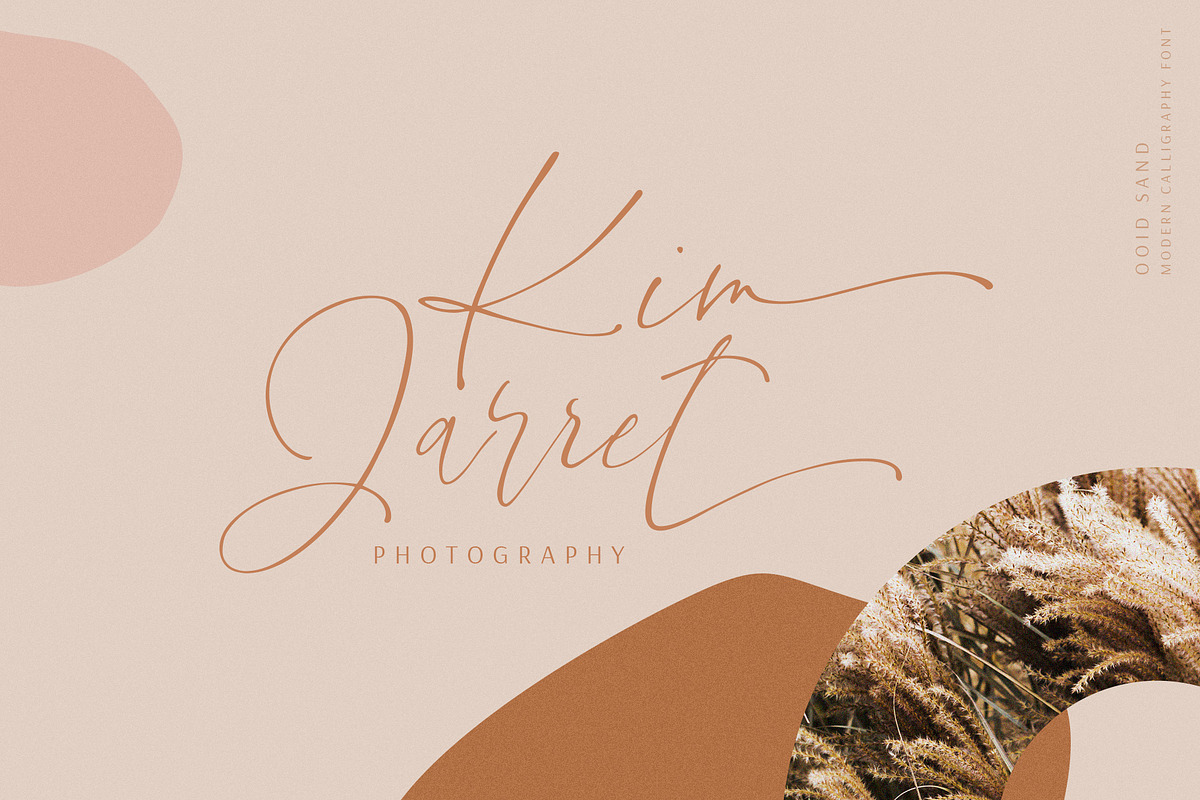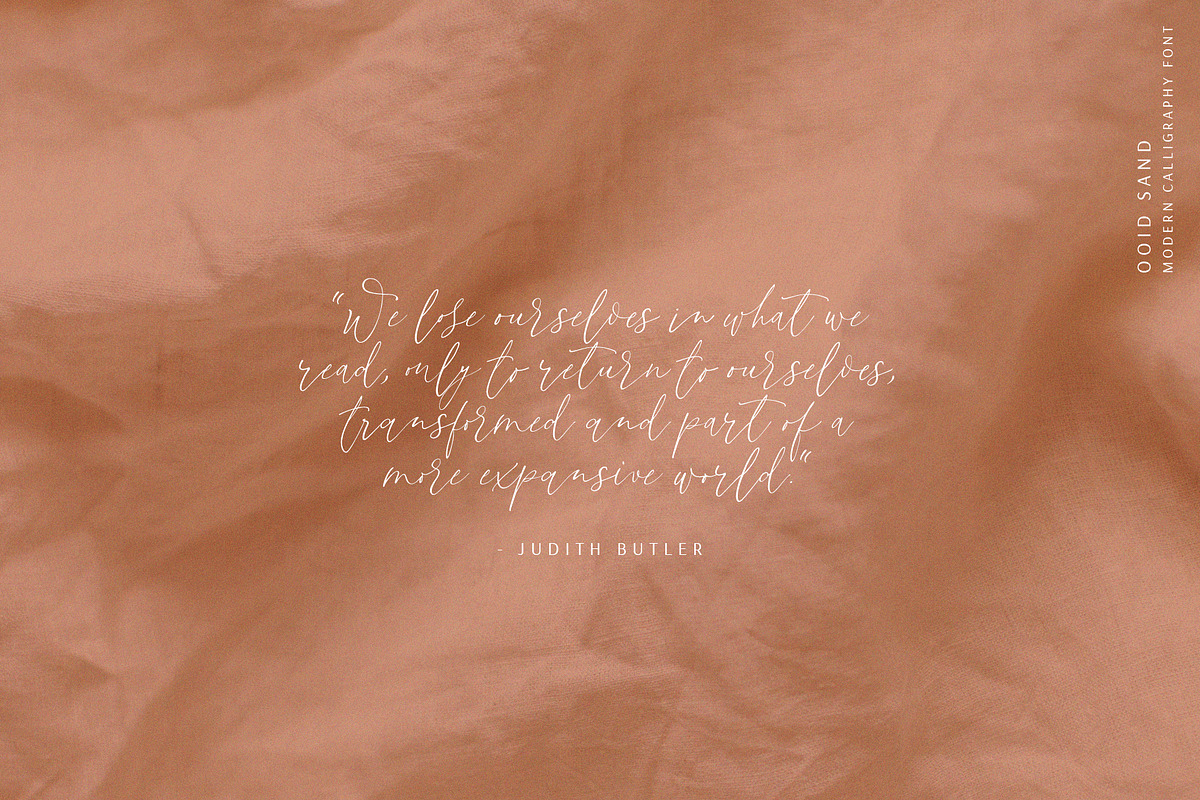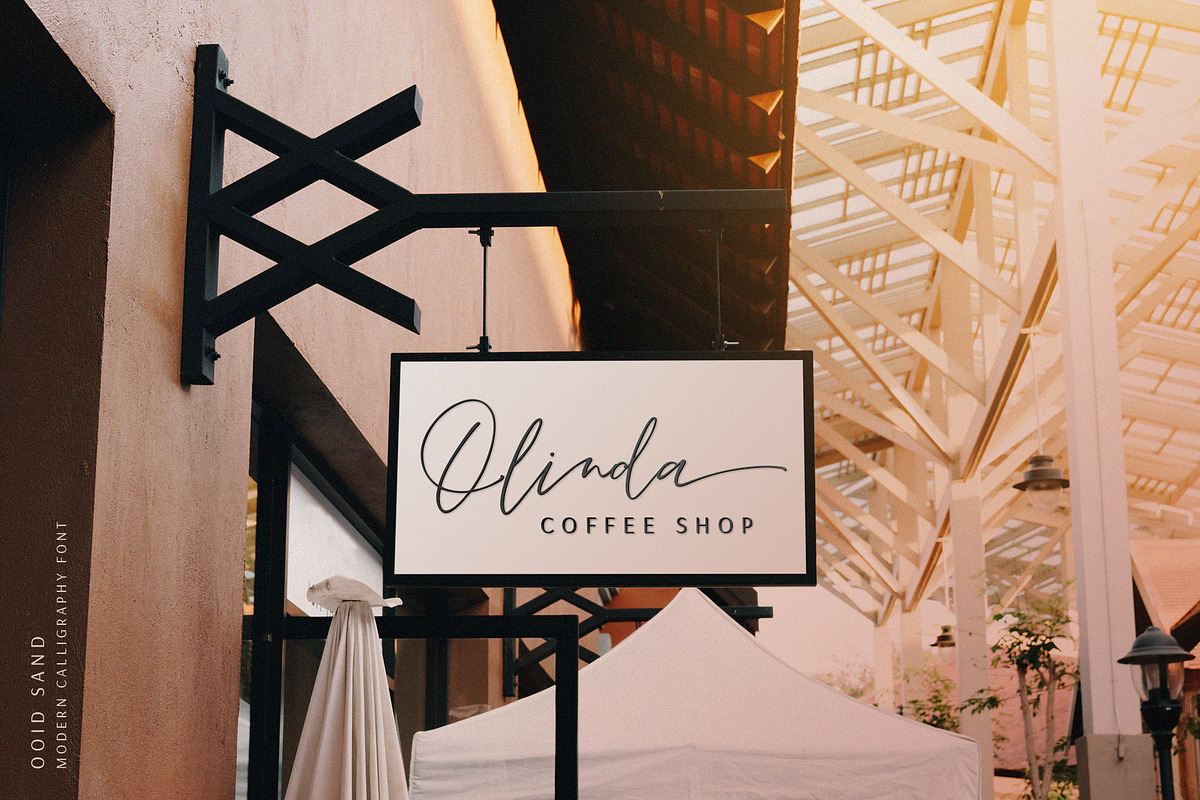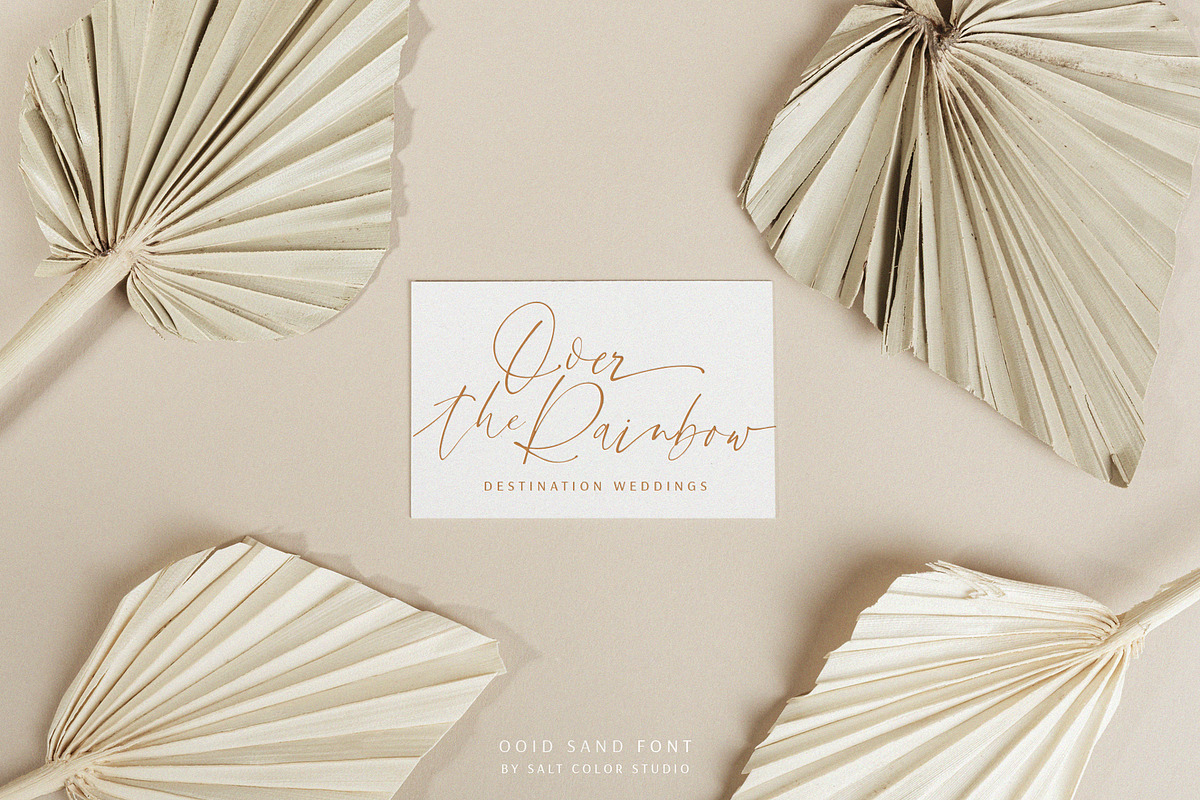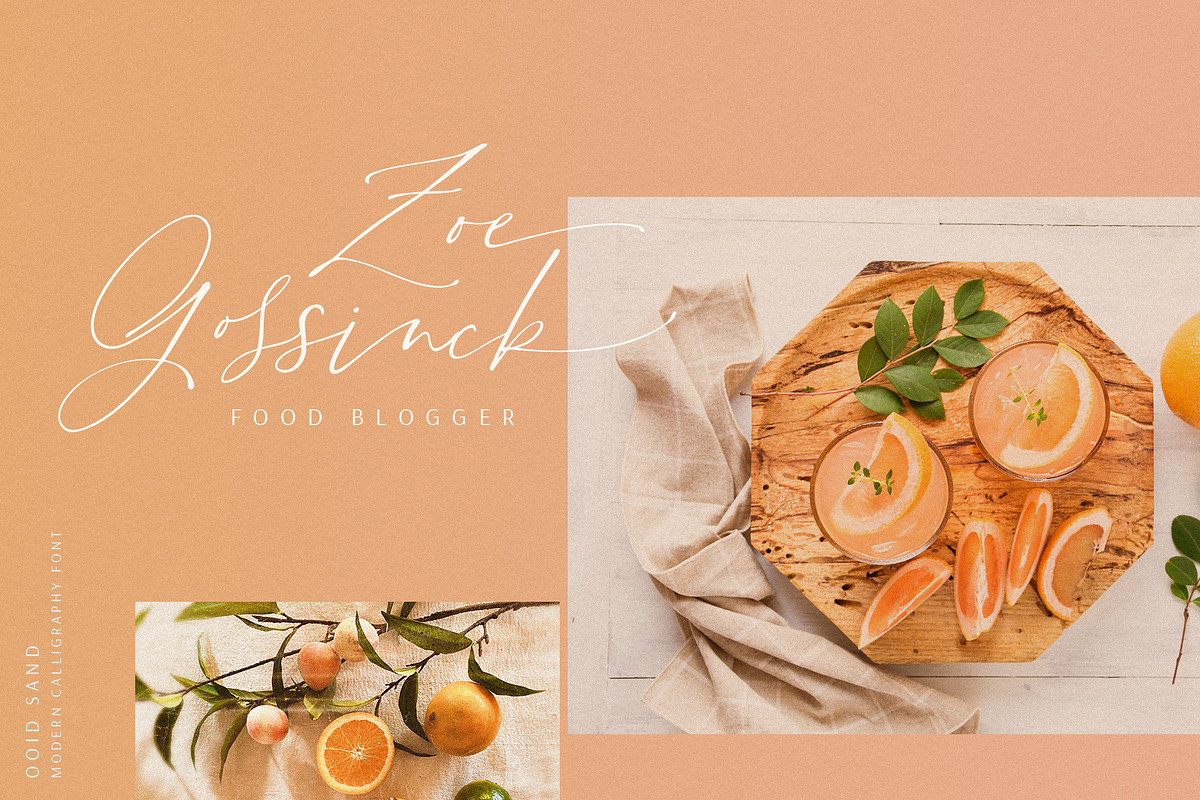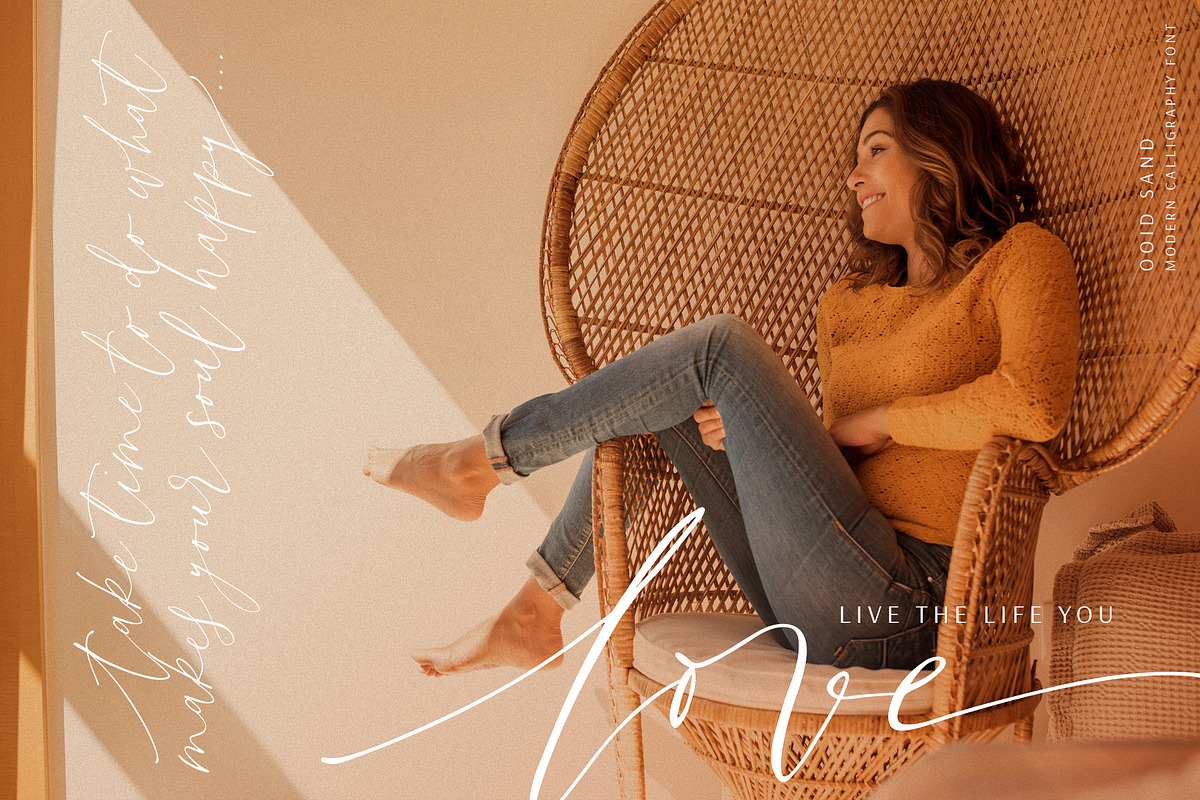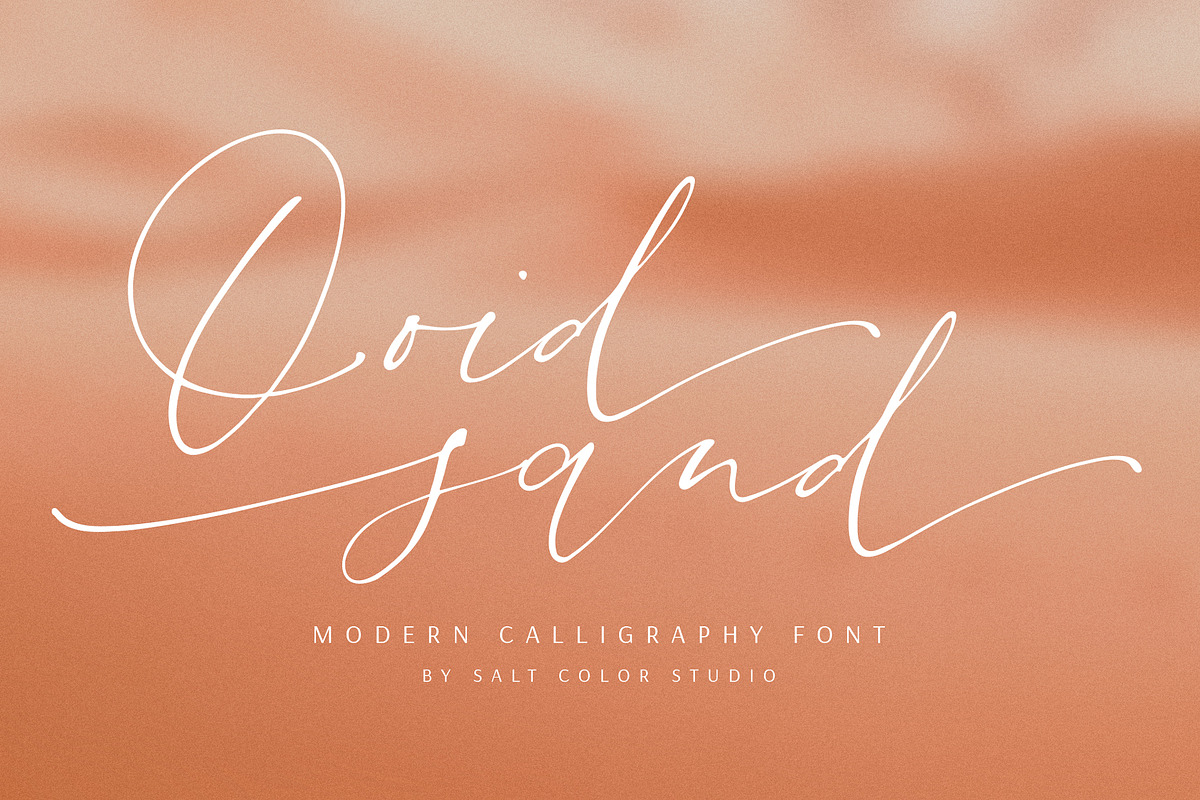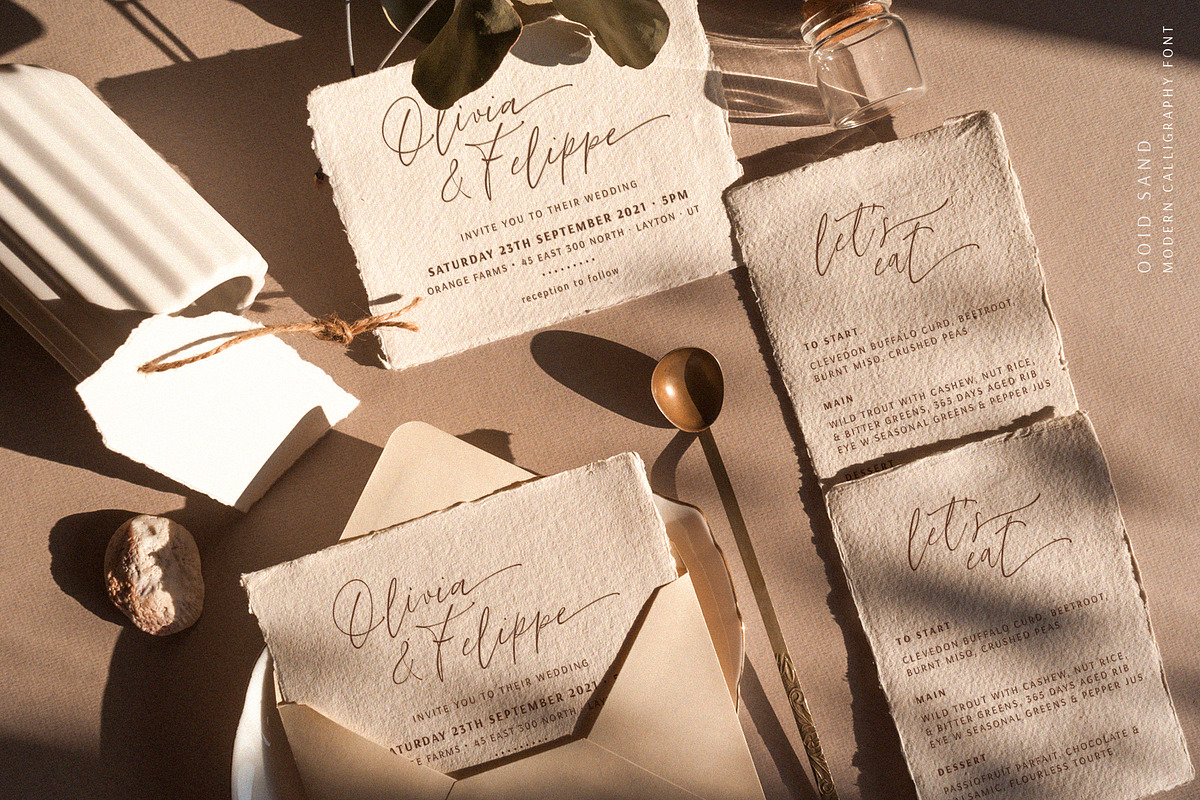
Ooid Sand Calligraphy Script Font
Ooid Sand is a calligraphy script font, inspired by desert vibes and earthy colors. It's a fluid and elegant font, created with a real pointed pen nib. Ooid Sand is a perfect fit for logos, branding projects, wedding invitation designs, poster artworks, shop and blog headers, instagram quotes, stationery, etc.
This delicate font includes beautiful lowercase swashes and 77 ligatures to give your text an actual handwritten style.